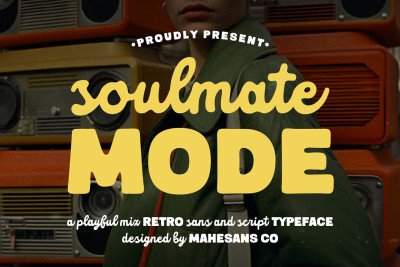
Soulmate Mode – Sans & Script Duo Font
Soulmate Mode – Sans & Script Duo combines clean construction with expressive detail, making it a dependable asset in any type toolkit.